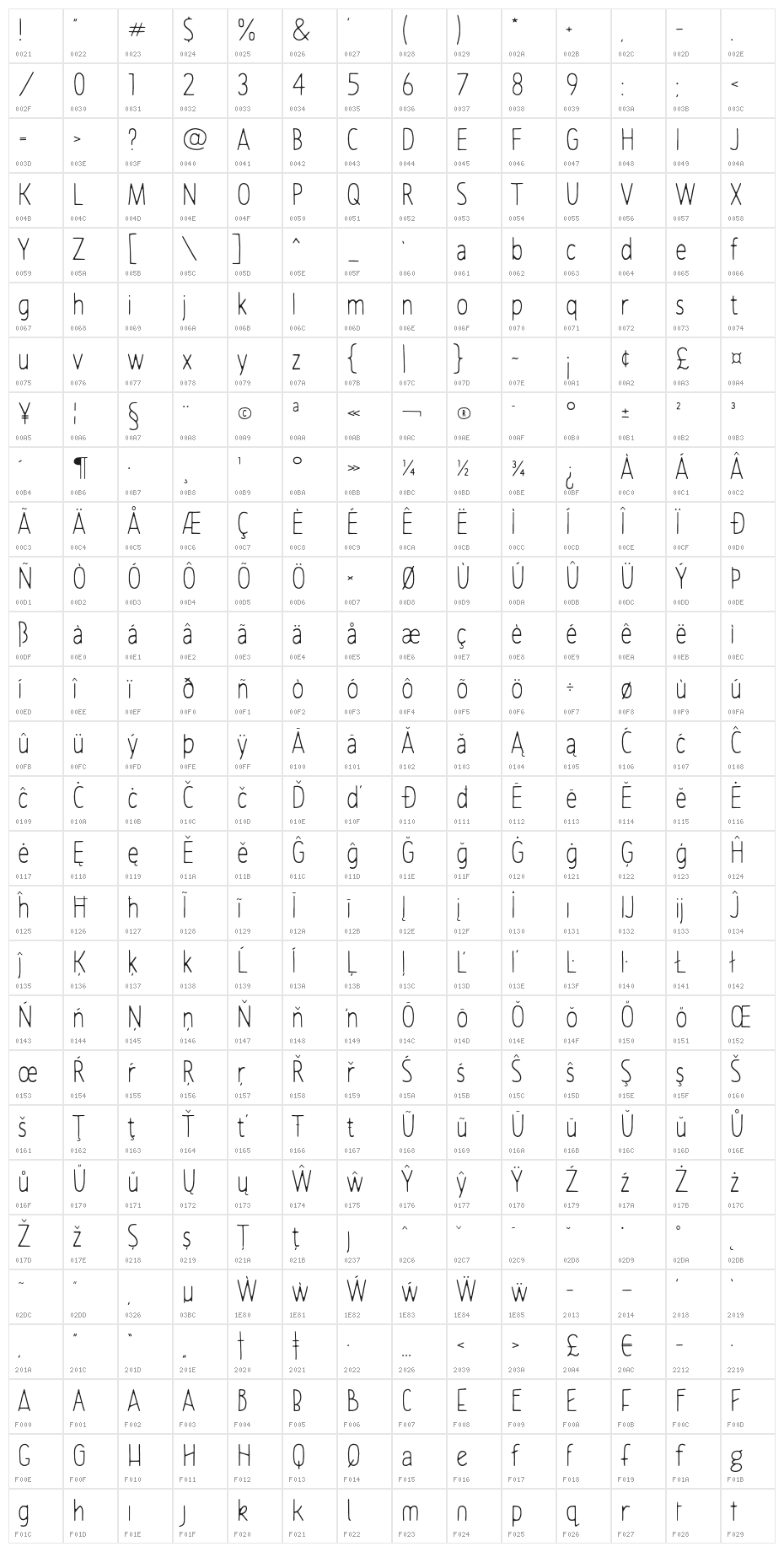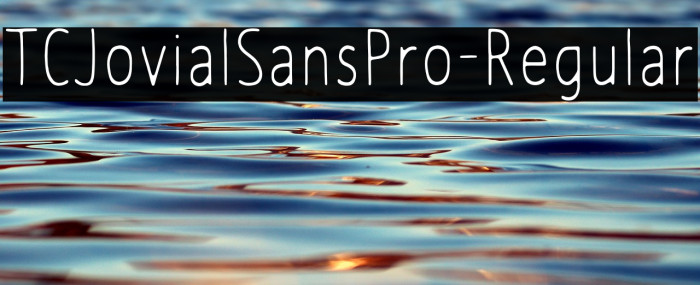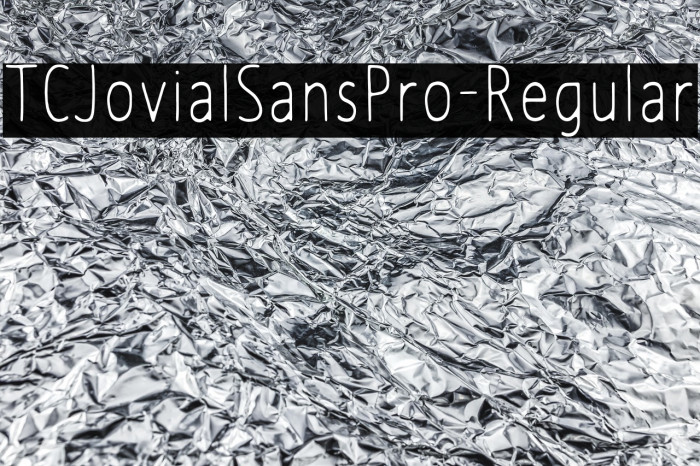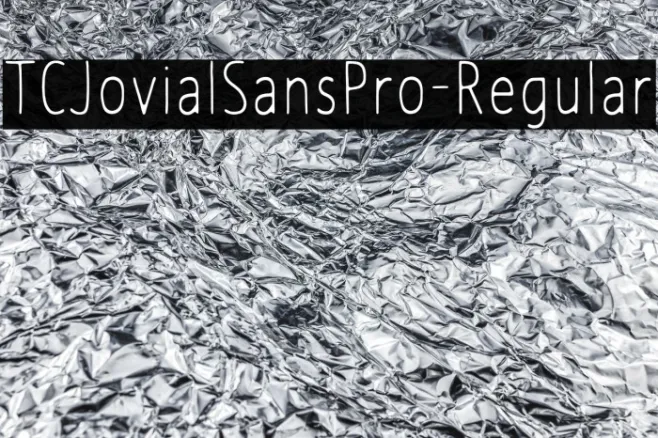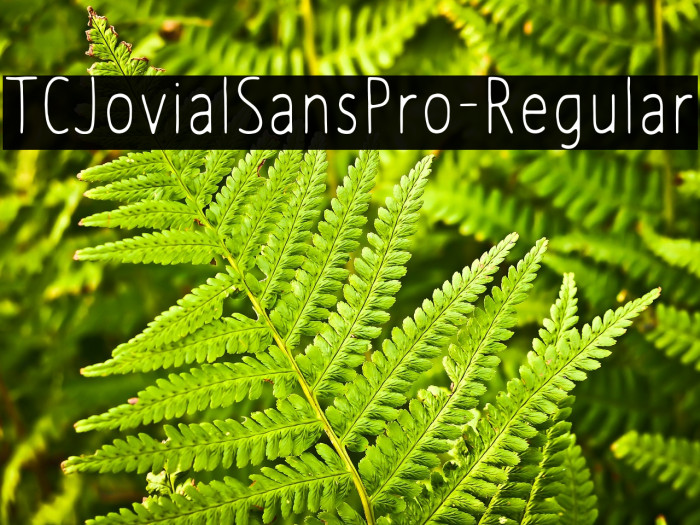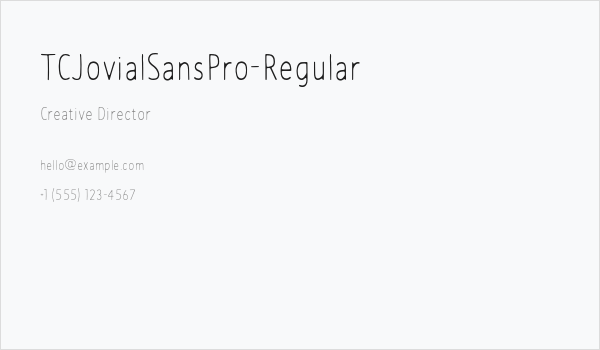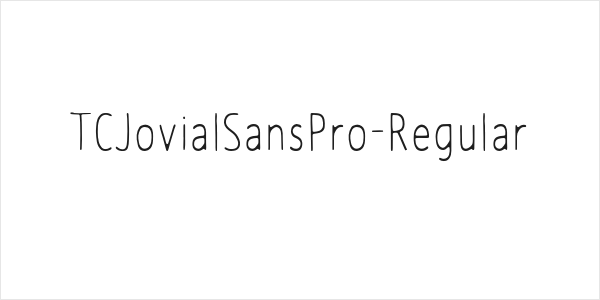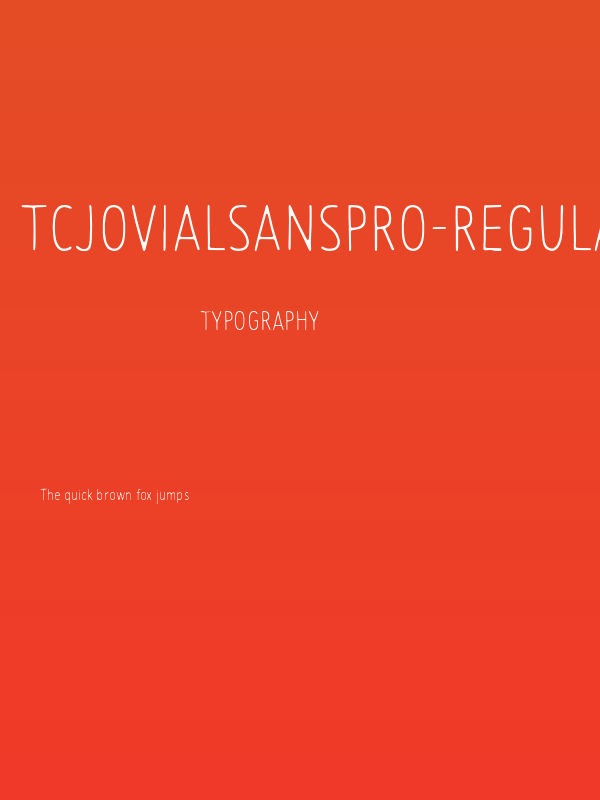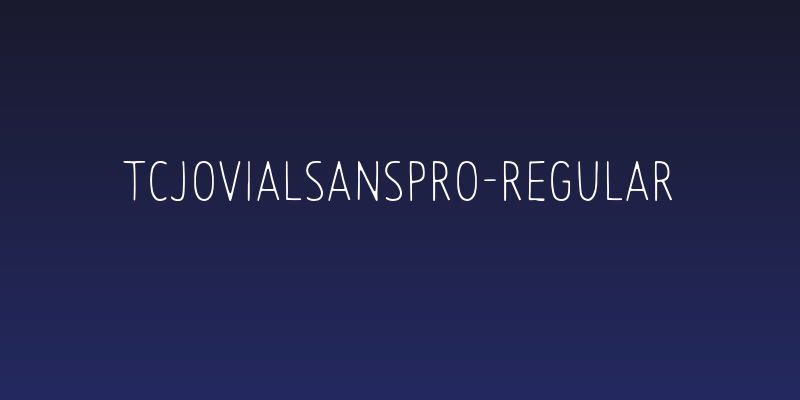
TCJovialSansPro-Regular Font
TCJovialSansPro-Regular Description
This font features a playful and casual style with a handwritten appearance. The letters are slightly irregular, giving it a charming and approachable feel. The strokes are consistent in width, contributing to a clean and modern look. The uppercase and lowercase letters maintain a uniform height, while the numerals and special characters are designed to complement the overall aesthetic. The font's simplicity and readability make it versatile for various design projects.
| Use Case | Headlines, Informal text, Branding |
| Proposed Projects | Ideal for children's books, casual branding, greeting cards, and playful posters. |